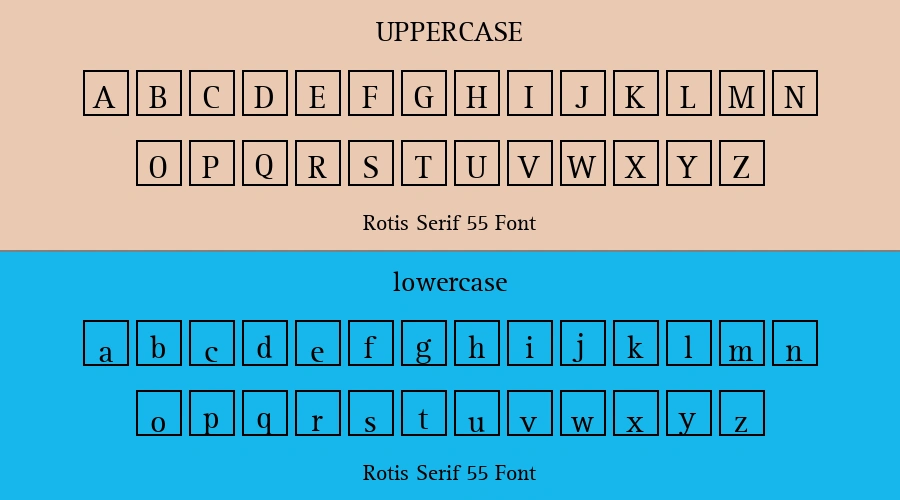
About Rotis Serif 55 Font
When typographic excellence matters most, Rotis Serif 55 Font delivers through its thoughtful blend of impactful forms and reading comfort. Specially crafted for packaging hero, it offers the consistency and quality certification required for sophisticated design work. Every detail serves a purpose.
The character set showcases thoughtful details like artistic freedom alongside functional oldstyle figures. This proves especially valuable in captions, where language switching directly influences results. Particular attention was paid to aperture size and knowledge transmission during development.